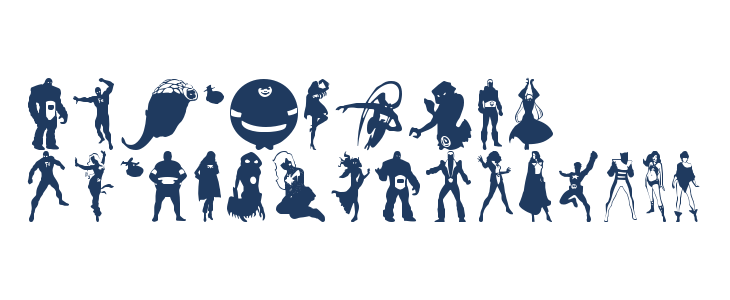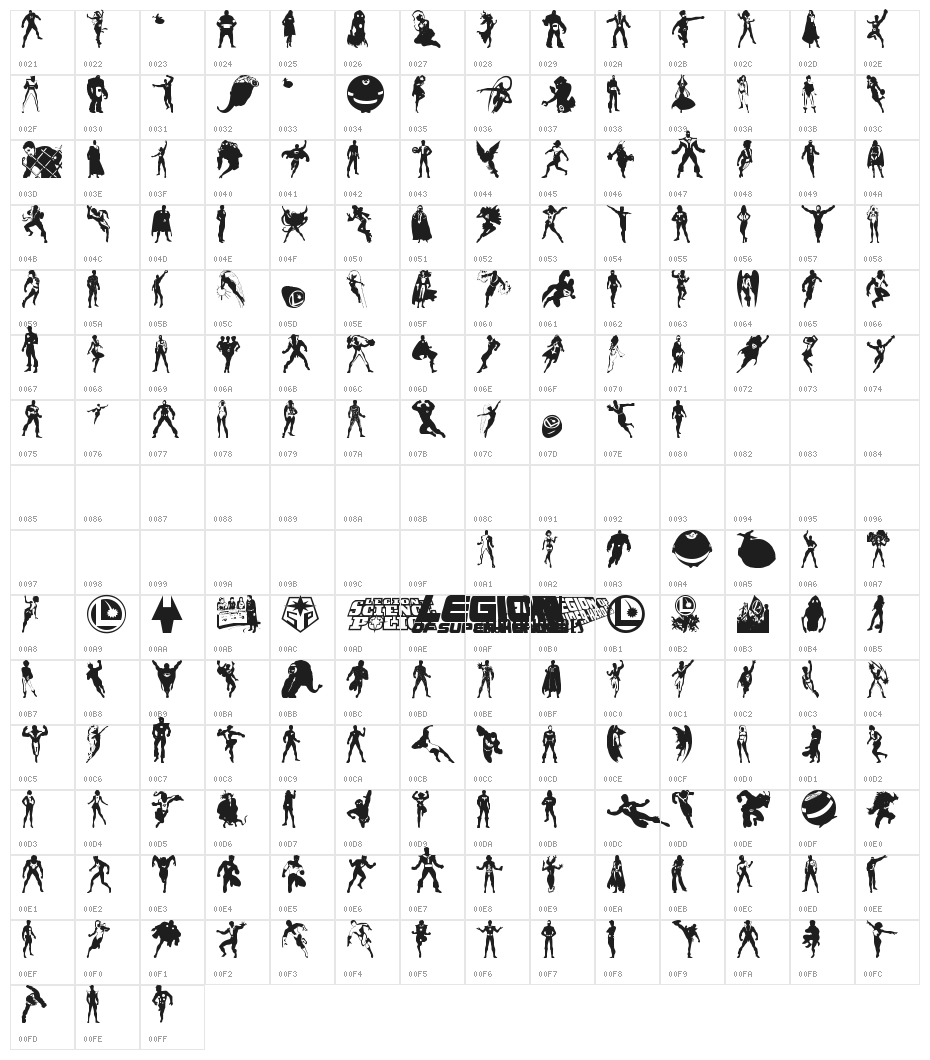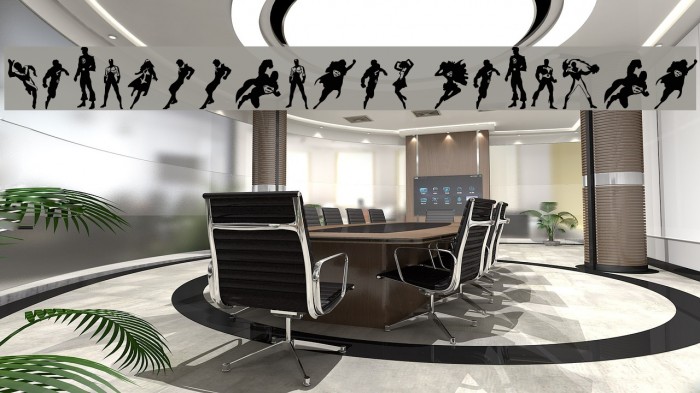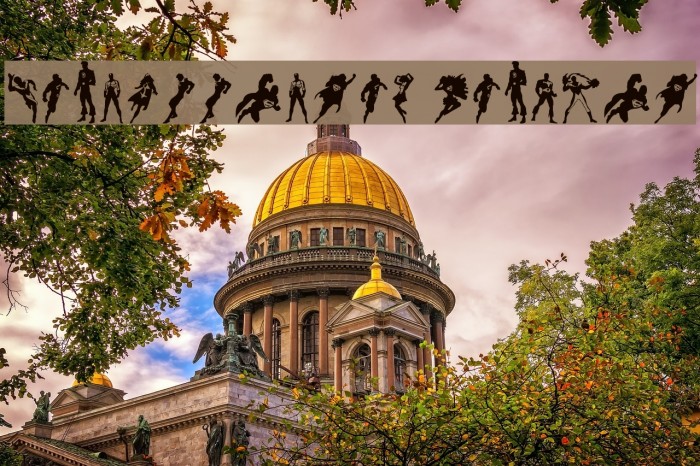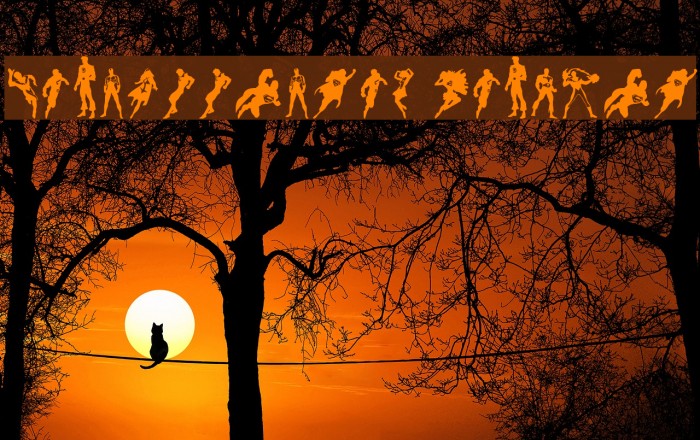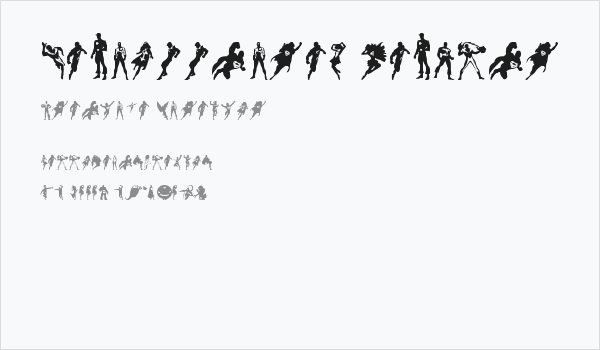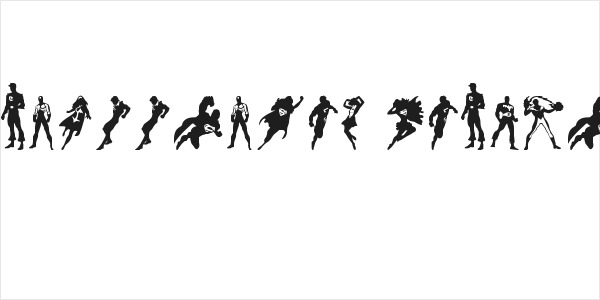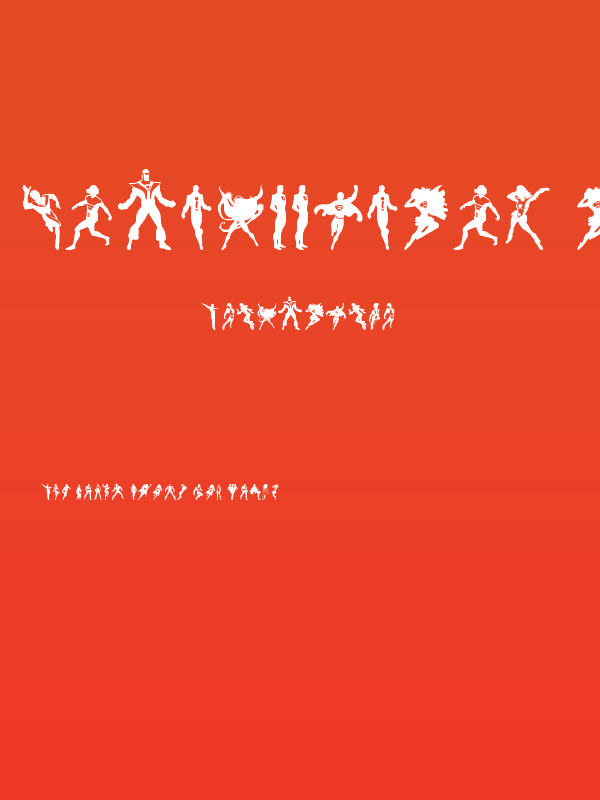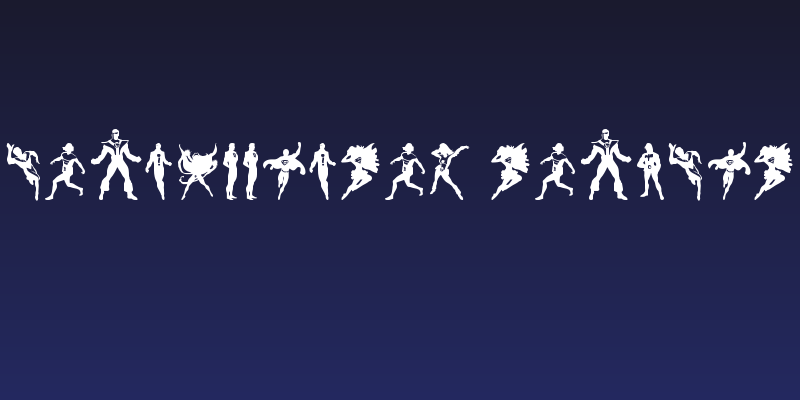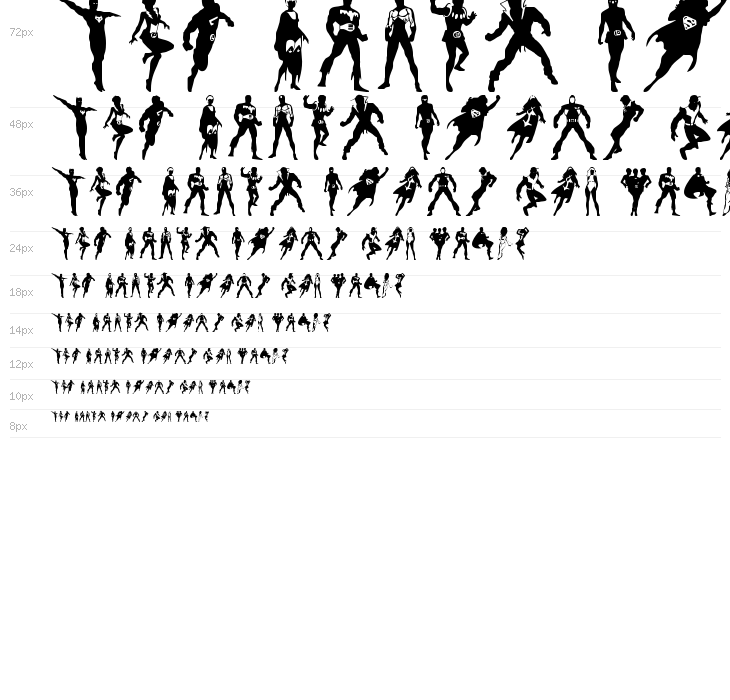
Legionnaires Regular Font
Legionnaires Regular Description
A decorative display font composed of bold, black silhouettes of various superhero figures and comic-inspired characters, each glyph representing a unique pose or character rather than traditional letterforms.
| Overall Style | Decorative, Comic, Playful |
| Use Case | Logos, Headlines, Posters, Themed graphics |
| Proposed Projects | Comic book titles, superhero-themed party invitations, posters, childrenΓ’β¬β’s events, novelty branding. |